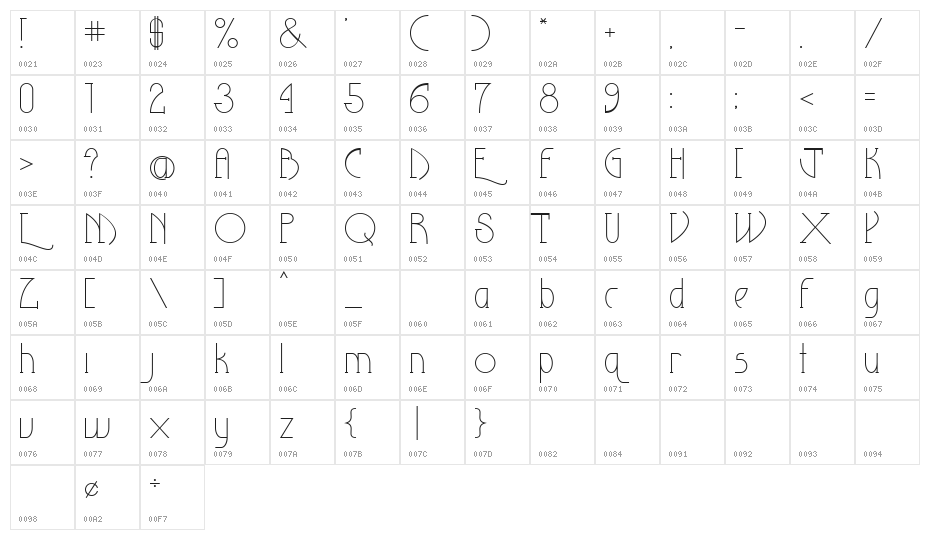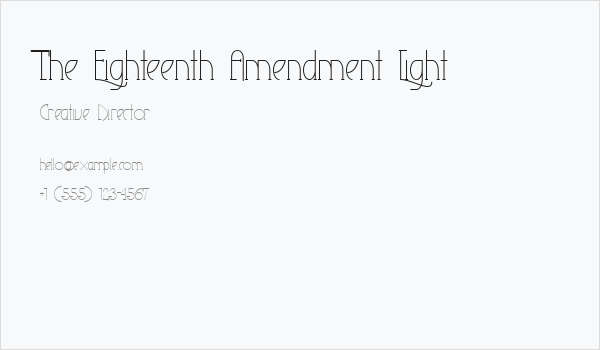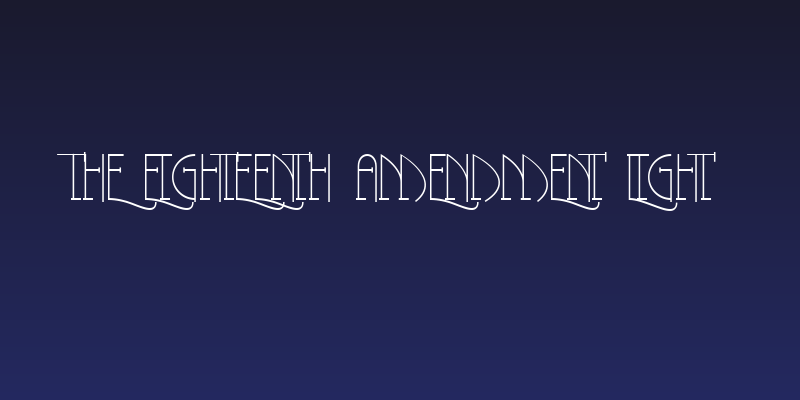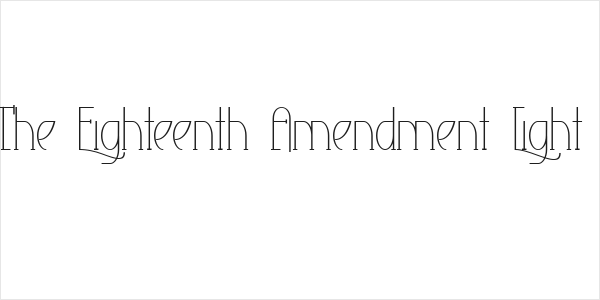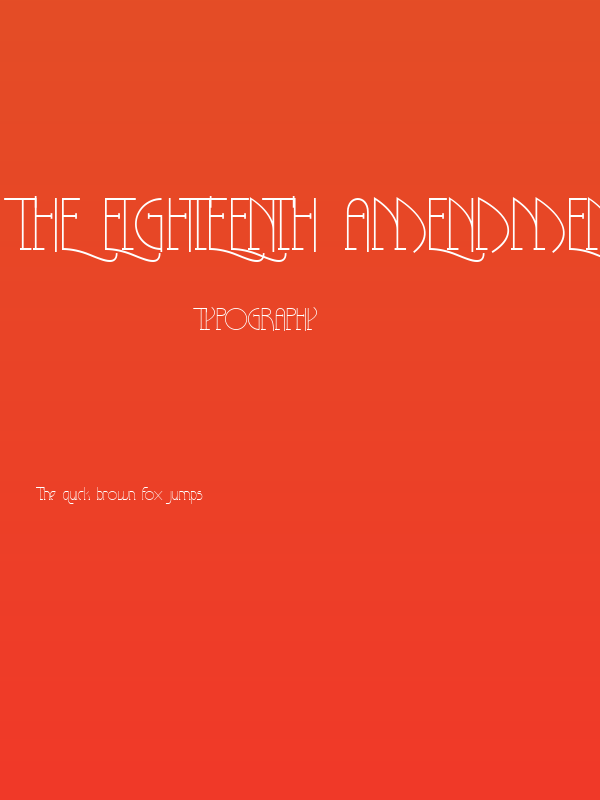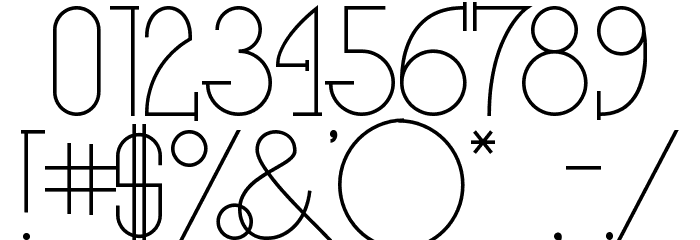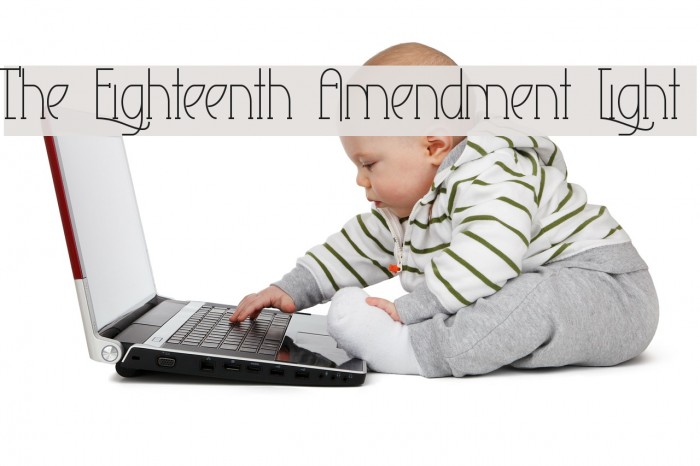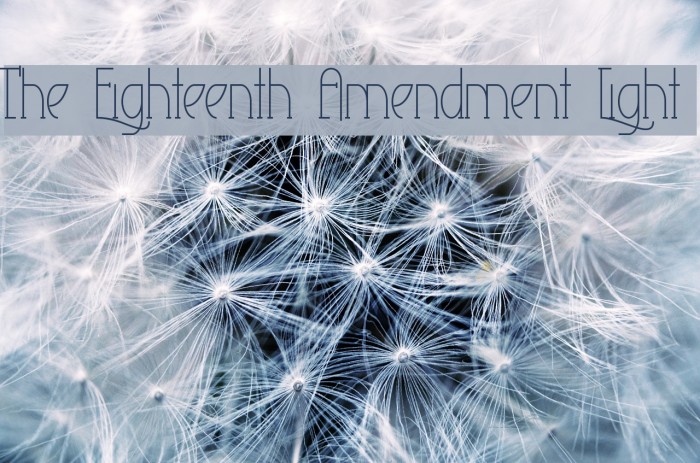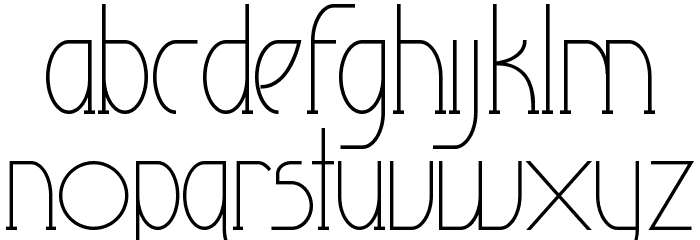
The Eighteenth Amendment Light Font
The Eighteenth Amendment Light Description
This font features a unique and elegant design with a modern twist. The characters are thin and elongated, with a distinct geometric influence. The uppercase letters have a sophisticated flair, with some characters incorporating subtle curves and angles that add to the overall aesthetic. The lowercase letters maintain a consistent style, complementing the uppercase with their sleek and streamlined appearance. Numbers are designed with a similar geometric precision, ensuring readability while maintaining the font's artistic integrity. Special characters are thoughtfully crafted, fitting seamlessly into the font's cohesive design. This font is ideal for projects that require a touch of elegance and modernity.